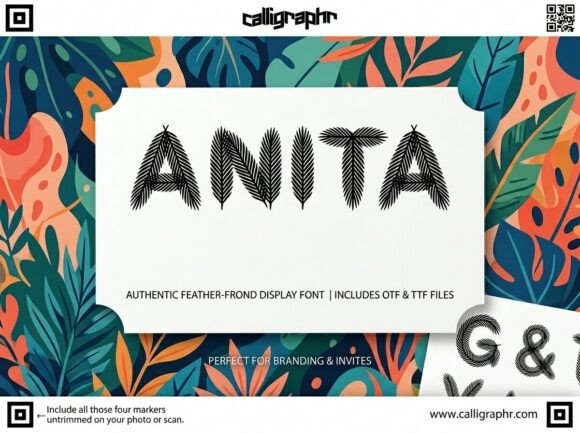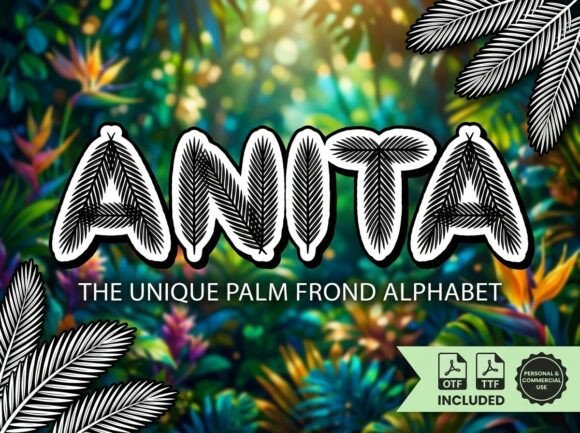
Escape to a Tropical Paradise with Anita Font
Are you looking for a typeface that can transport your designs to a tropical paradise? Look no further than Anita, a breathtaking display font that embodies the carefree spirit of a breezy and botanical getaway. With its bold, all-uppercase letterforms and unique hand-drawn textures, Anita is the perfect choice for designers and crafters seeking to add a touch of tropical flair to their projects.
The Inspiration Behind Anita
Anita’s design is inspired by the natural beauty of palm fronds, with each character featuring rhythmic, hand-drawn textures composed of thousands of delicate leaflets. This attention to detail creates a truly organic and earthy feel, bridging the gap between traditional nature sketches and modern vacation branding. The result is a font that is both modern and timeless, perfect for a wide range of design applications.
Perfect for Tropical-Themed Designs
Anita is specifically designed to evoke the feeling of a tropical paradise, making it the premier choice for independent beach resort identities, artisanal summer beverage labels, botanical garden exhibits, and high-impact social media headers. Whether you’re creating a logo for a beachside bar, a label for a summer cocktail, or a header for a social media campaign, Anita is the perfect font to capture the essence of a tropical getaway.
Key Features of Anita Font
- Bold, all-uppercase letterforms: Anita’s bold and uppercase letterforms make it perfect for headlines, titles, and short texts.
- Hand-drawn palm frond textures: Each character features unique, hand-drawn textures composed of thousands of delicate leaflets, giving Anita its distinctive tropical feel.
- Organic and earthy feel: Anita’s design bridges the gap between traditional nature sketches and modern vacation branding, creating a truly unique and eye-catching look.
- High-impact social media headers: Anita’s bold and attention-grabbing design makes it perfect for social media headers, guaranteed to make your content stand out.
Design Applications for Anita Font
Anita’s versatility makes it suitable for a wide range of design applications, including:
- Independent beach resort identities: Create a unique and memorable logo for your beachside resort with Anita’s bold and tropical design.
- Artisanal summer beverage labels: Add a touch of tropical flair to your summer cocktail labels with Anita’s hand-drawn textures and organic feel.
- Botanical garden exhibits: Use Anita to create eye-catching signage and exhibits for your botanical garden, transporting visitors to a tropical paradise.
- Social media headers: Make your social media content stand out with Anita’s bold and attention-grabbing design, perfect for headers and titles.
Tips for Using Anita Font
To get the most out of Anita, here are a few design tips:
- Use bold and contrasting colors: Anita’s bold design pairs perfectly with bright and contrasting colors, making it perfect for high-impact designs.
- Experiment with textures and patterns: Anita’s hand-drawn textures and organic feel make it perfect for combining with other textures and patterns to create a unique look.
- Keep it simple and concise: Anita’s bold design makes it perfect for short texts and headlines, so keep your message simple and concise to maximize impact.
Anita font is a breathtaking display typeface that captures the essence of a tropical paradise. With its bold, all-uppercase letterforms and unique hand-drawn textures, Anita is the perfect choice for designers and crafters seeking to add a touch of tropical flair to their projects. Whether you’re creating a logo, label, or social media header, Anita is sure to transport your designs to a tropical paradise.